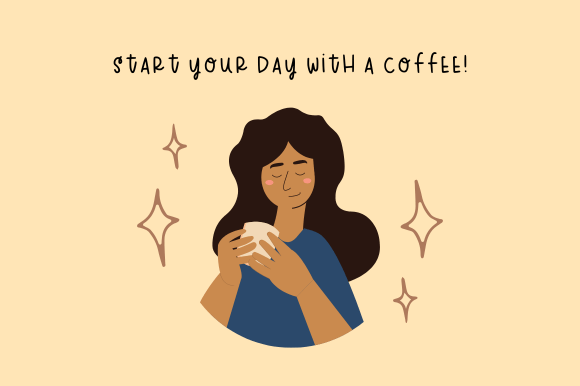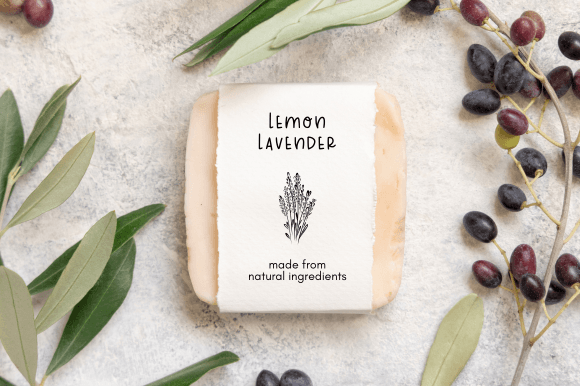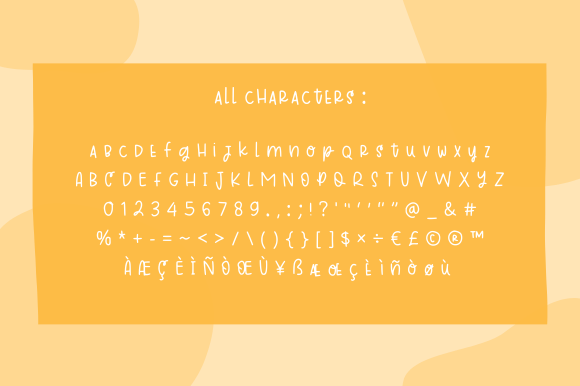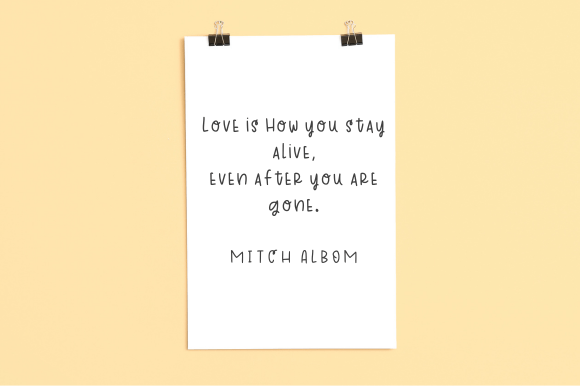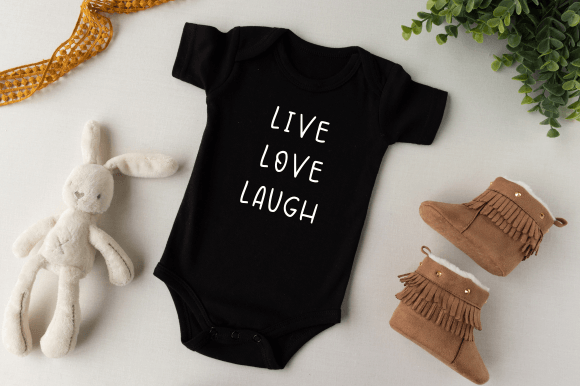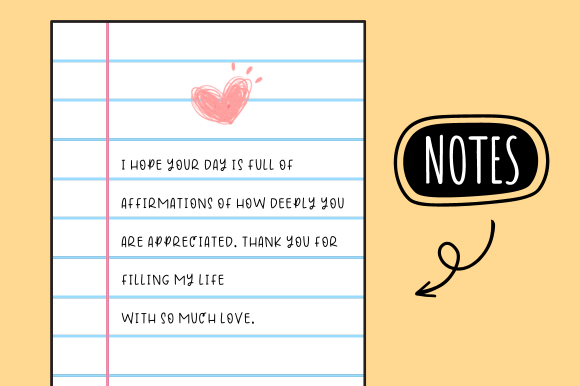
Introduction to Sea Bird Font Font
Fonts play a crucial role in design, and the Sea Bird Font font is a typeface that brings both character and versatility to any project. Whether you’re working on a branding project, a website, or a print design, the Sea Bird Font font offers a unique style that can elevate your work.
Sea Bird is a fun and friendly handwritten font.
Use it to turn any design idea into a true standout Get inspired by its unique charm and create lovely designs.
Key Features of Sea Bird Font Font
Why Choose Sea Bird Font Font?
The Sea Bird Font font is more than just a typeface – it’s a design tool that helps you communicate your message with style and clarity. Its unique character set and versatile design make it suitable for a wide range of applications, from elegant invitations to bold headlines.
With its carefully crafted letterforms and balanced proportions, the Sea Bird Font font ensures readability and visual appeal across all mediums.
What makes Sea Bird Font font special?
The Sea Bird Font font stands out with its unique design, exceptional readability, and versatility across various design applications.